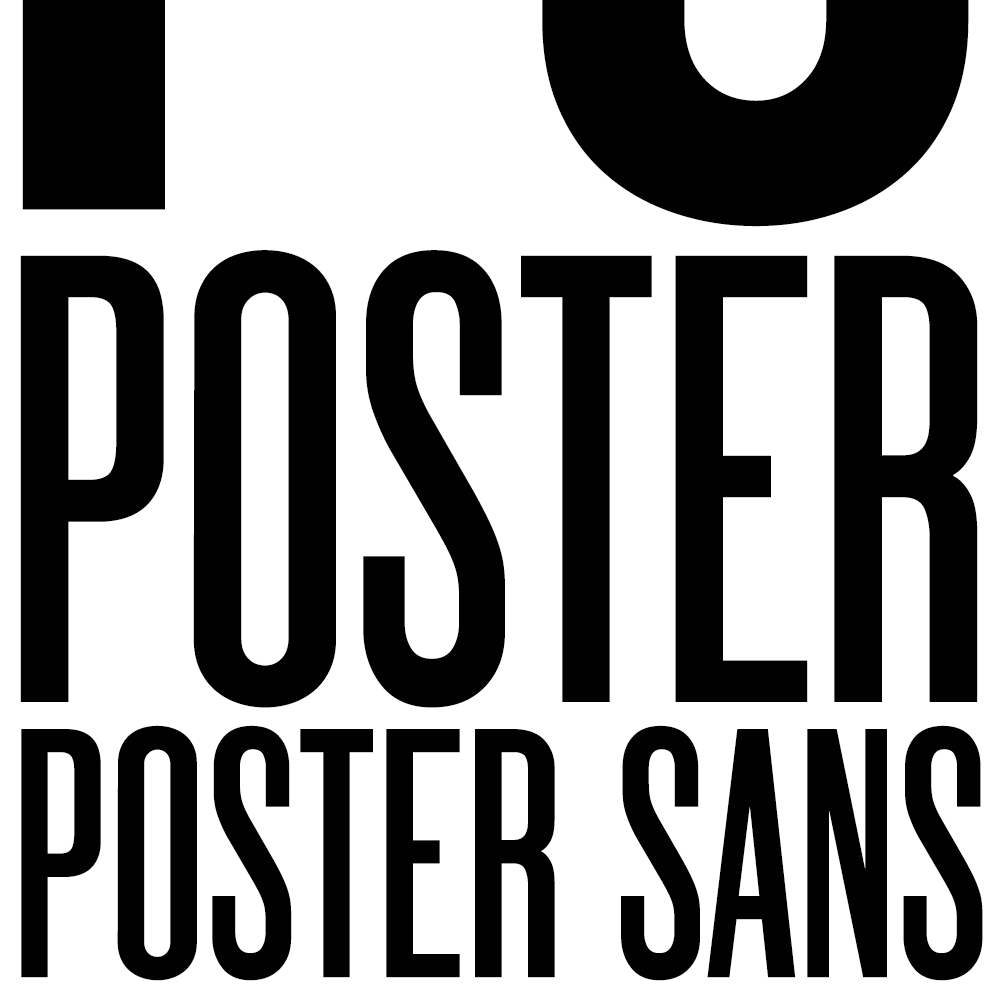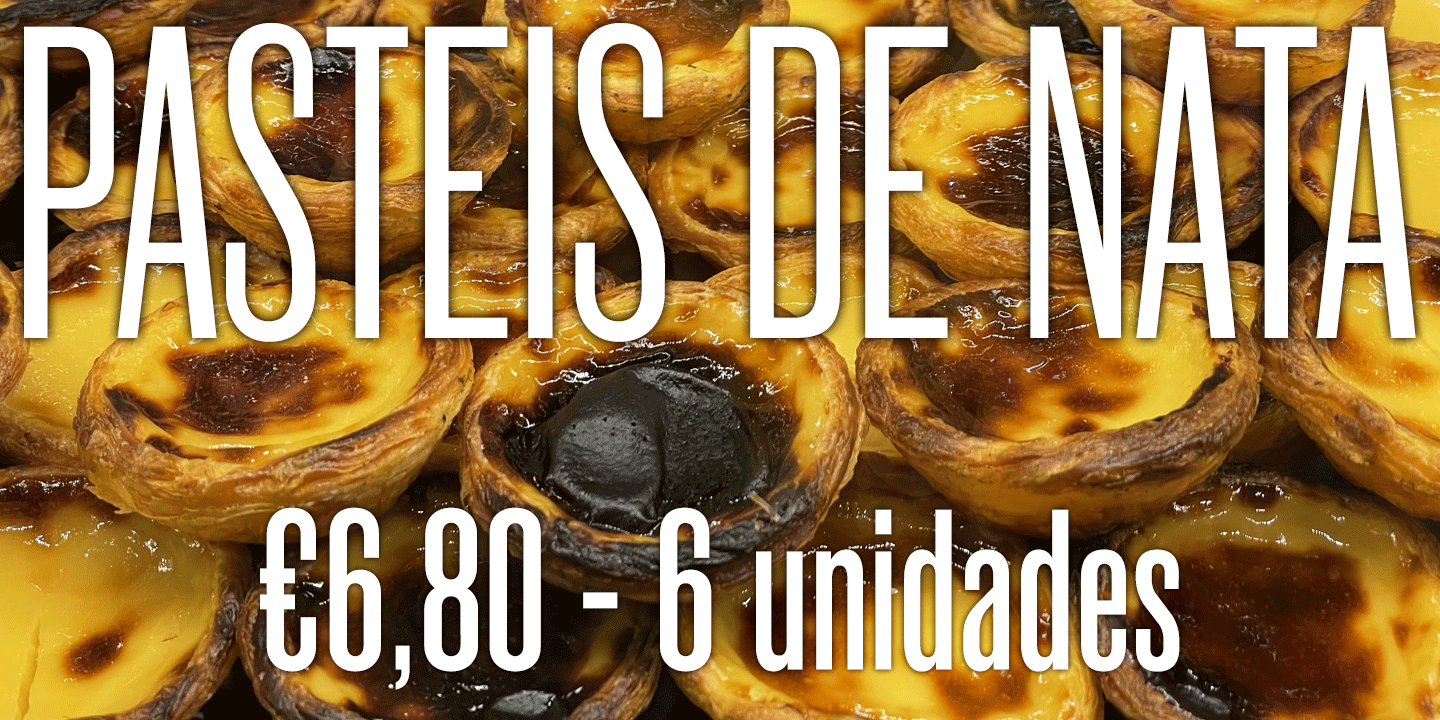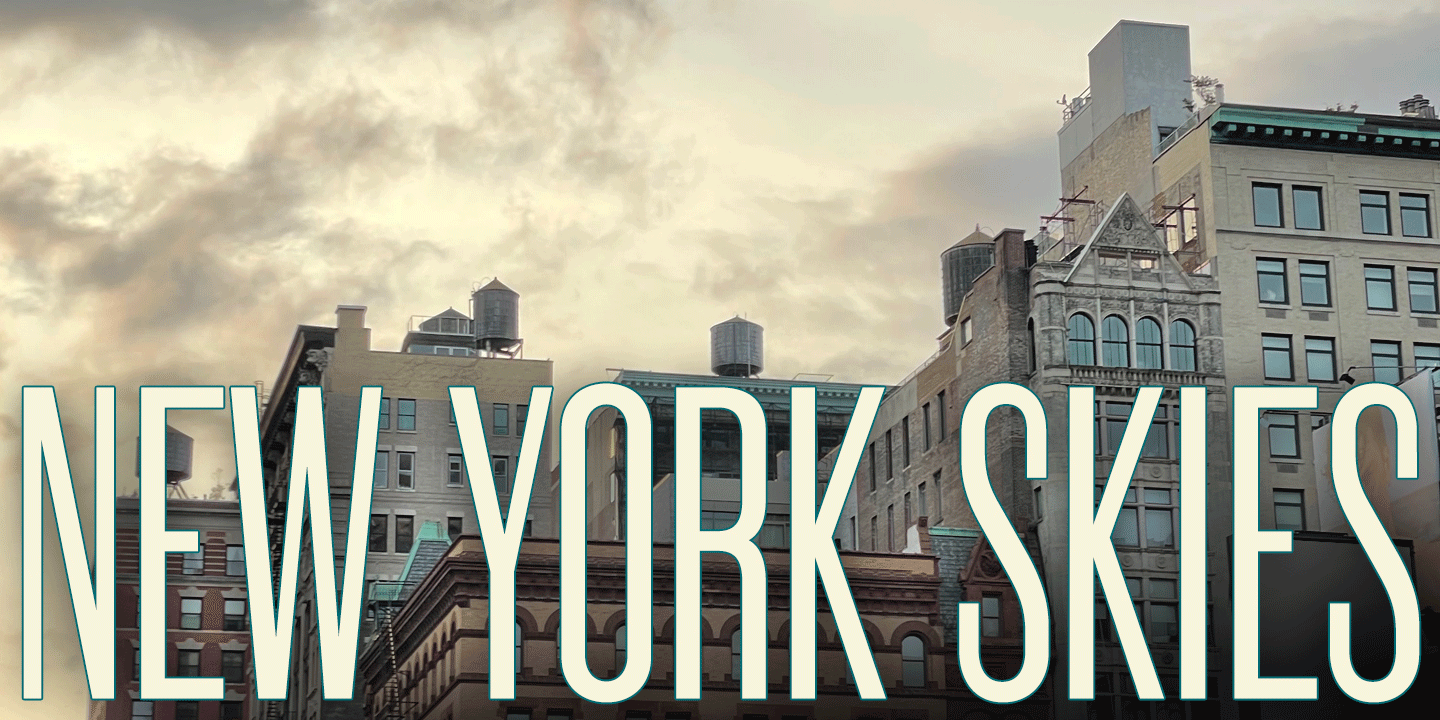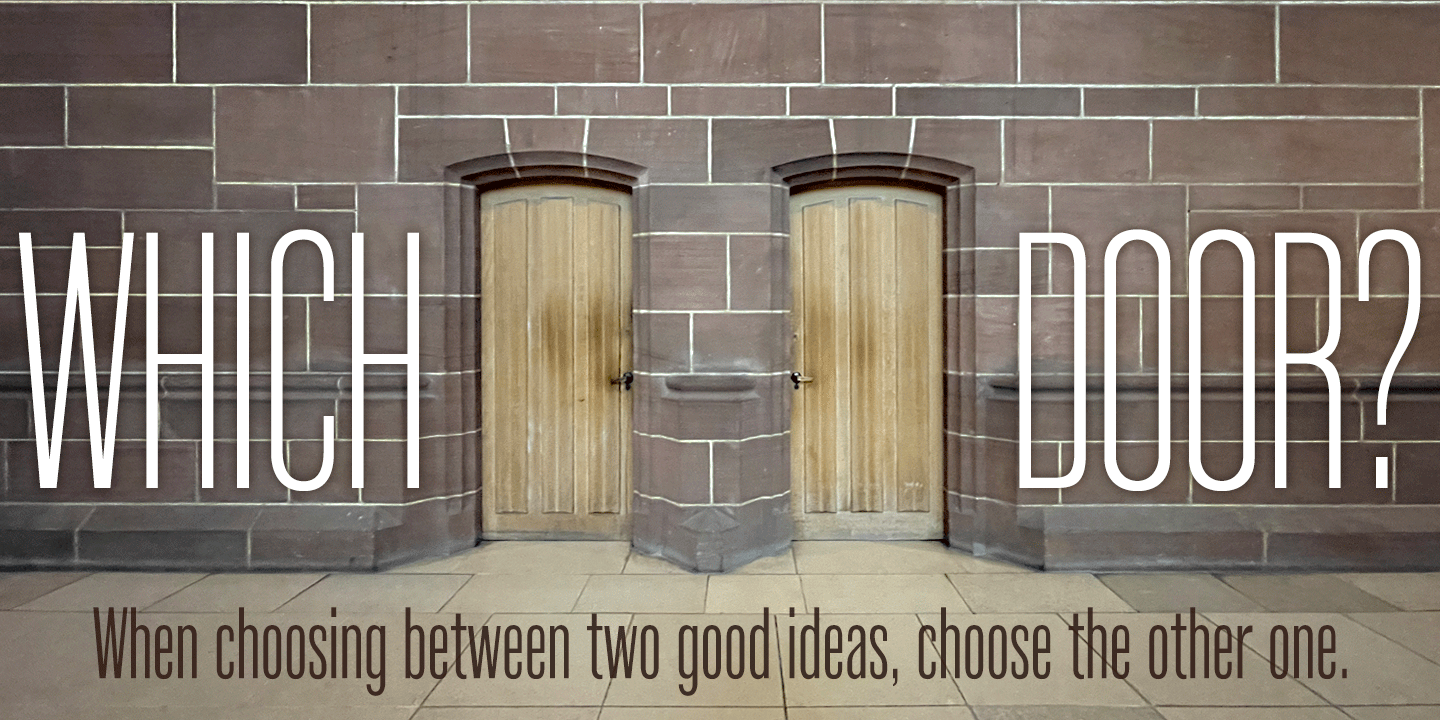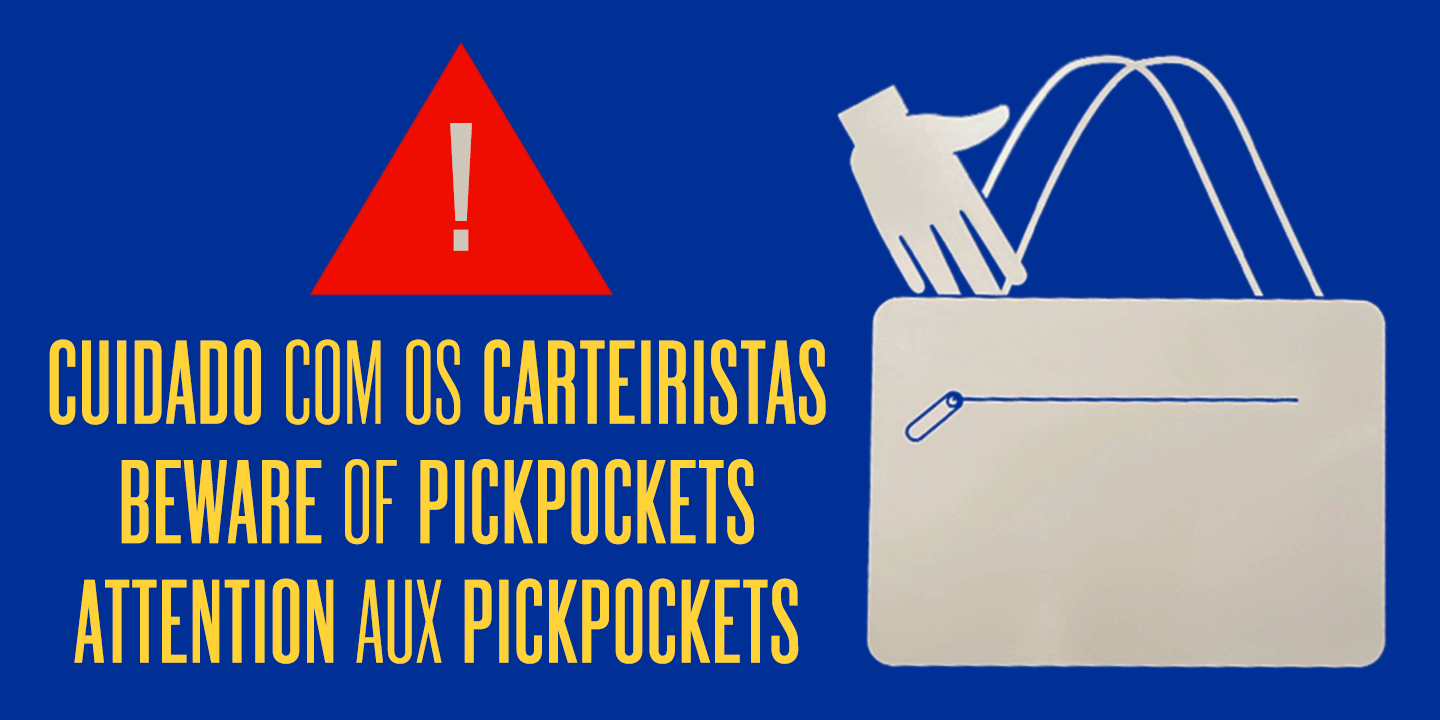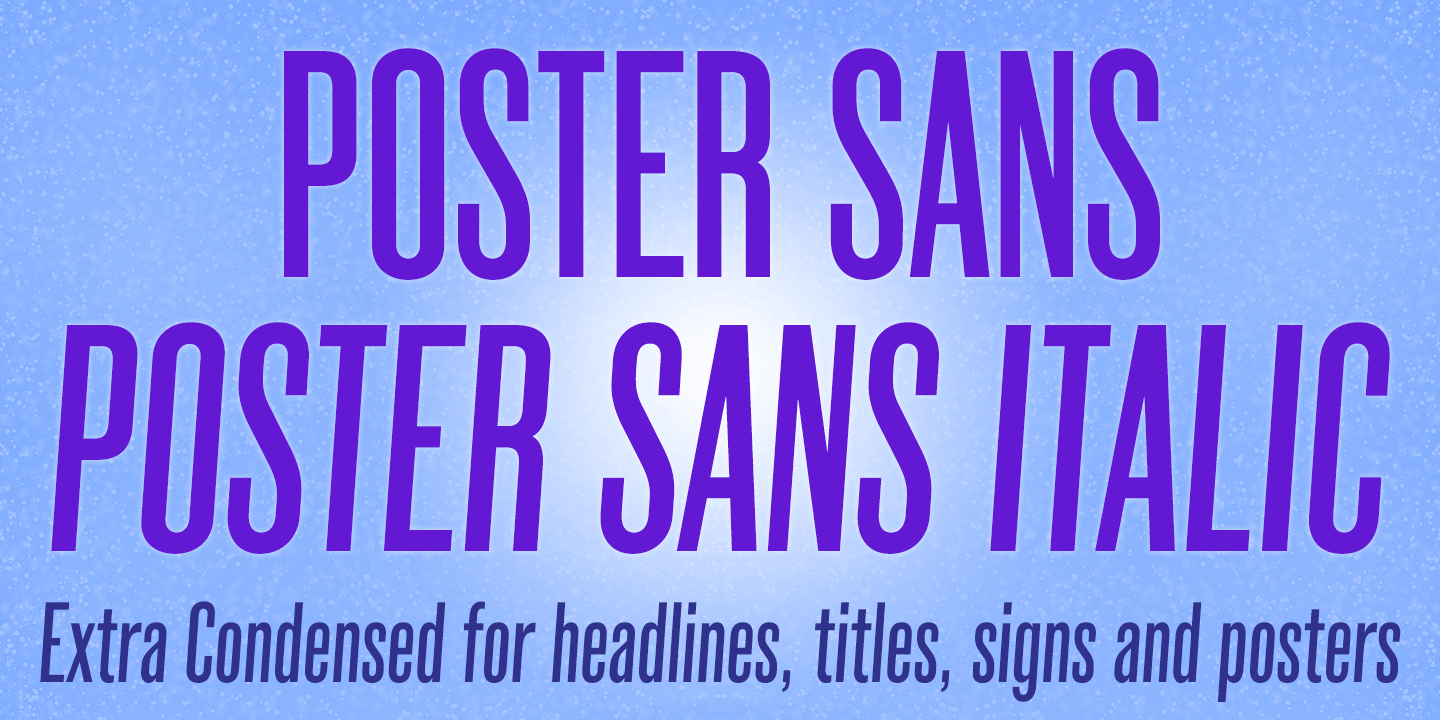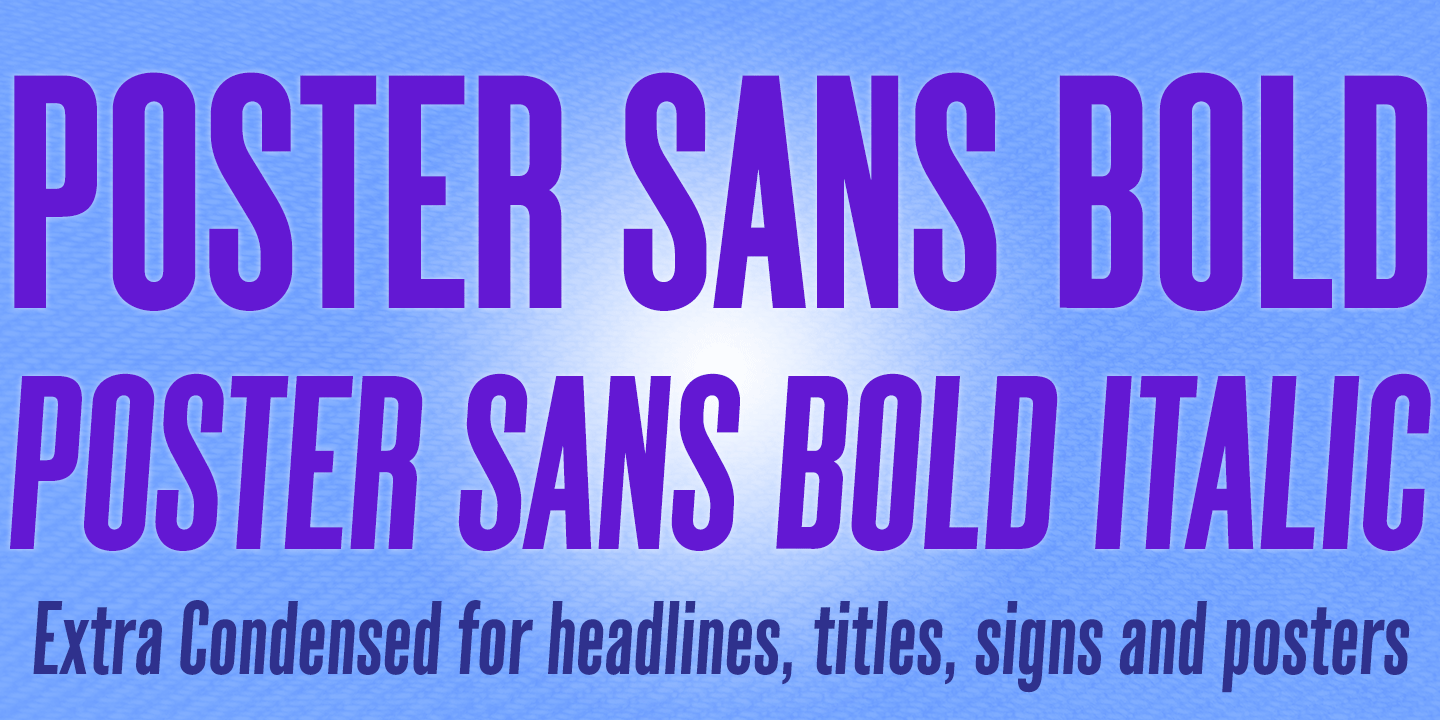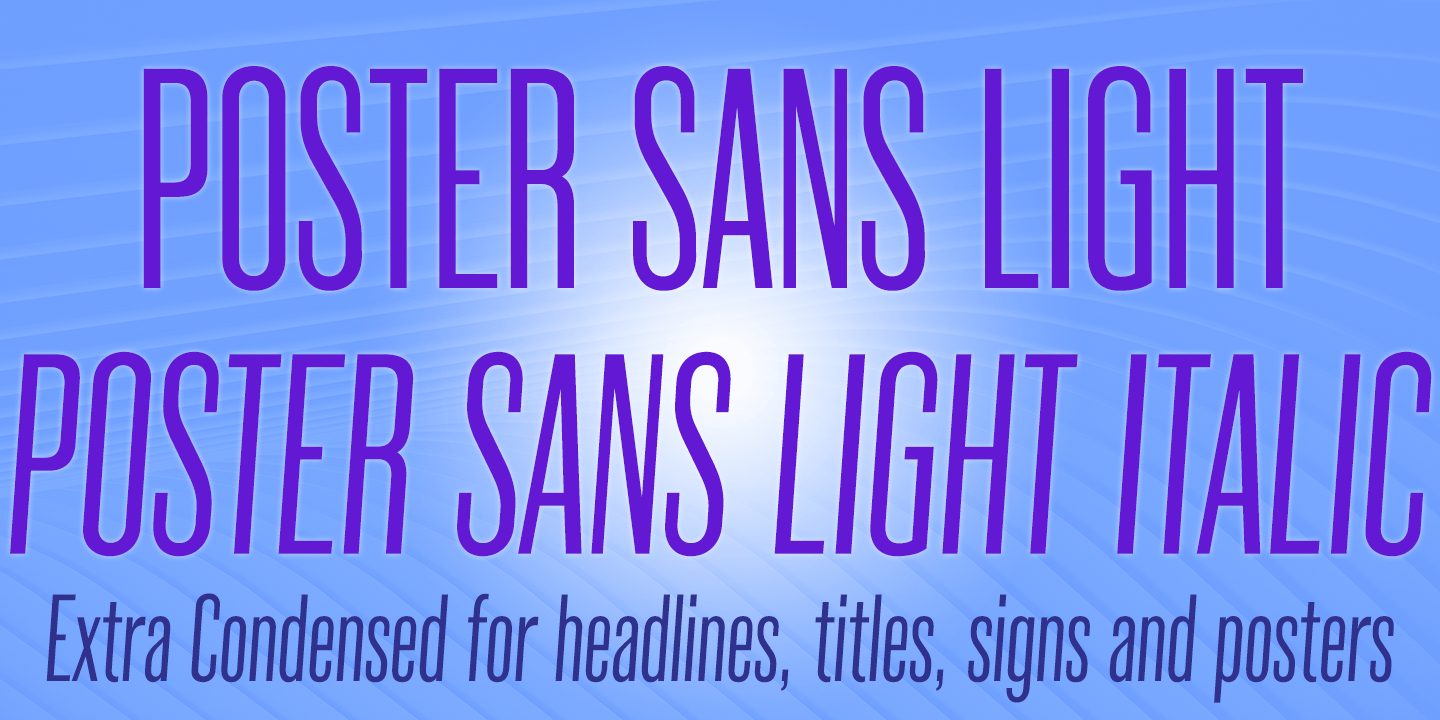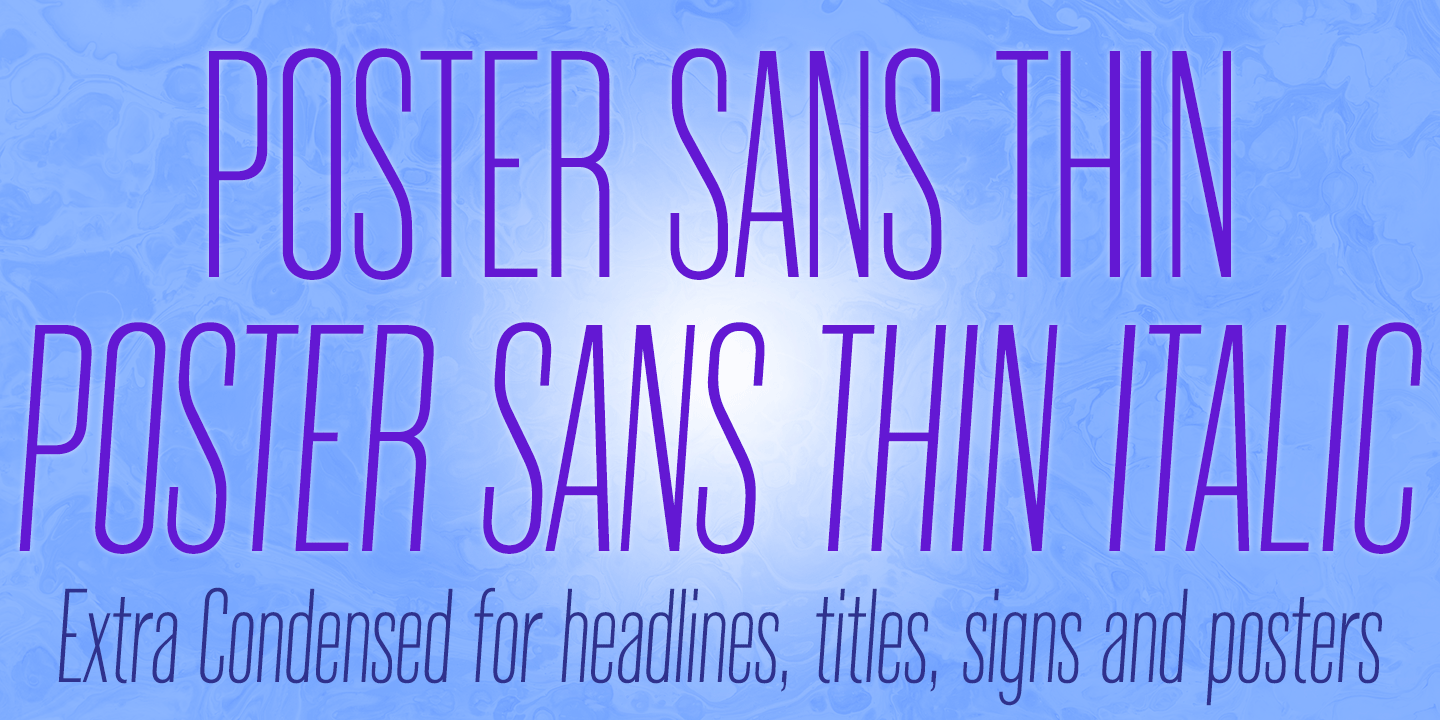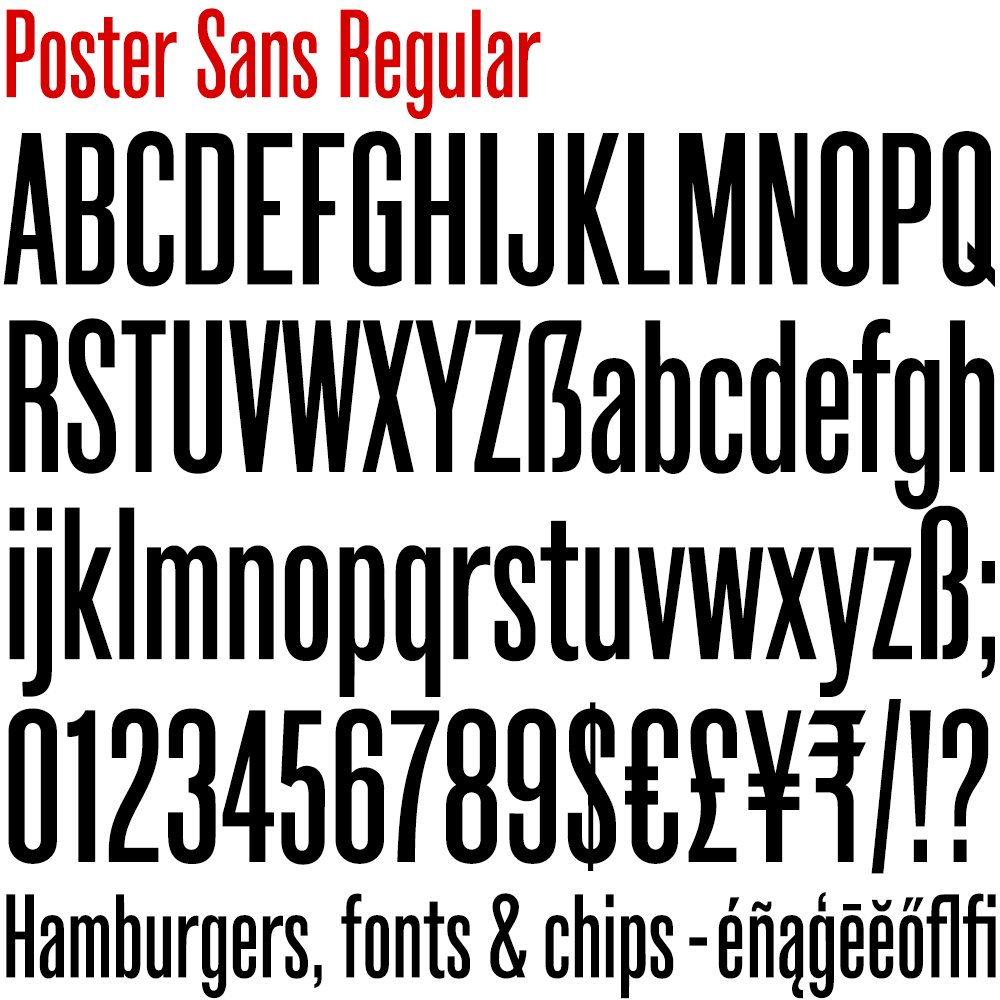
Poster Sans
Loosely based on Ludlow 6-EC, the Poster Sans family is perfect for headlines, titles, signs and posters, and has the enduring functionality of vintage condensed grotesques, timeless and trustworthy. The version 6 fonts feature completely redrawn character sets with improved outlines, spacing and kerning, and each containing a full complement of Latin Extended-A European accented characters.
Two new weights are also available, Light and Thin, each accompanied by a complimentary Italic (oblique).
Poster Sans Extreme may hold the record for the slimmest, usable font available.